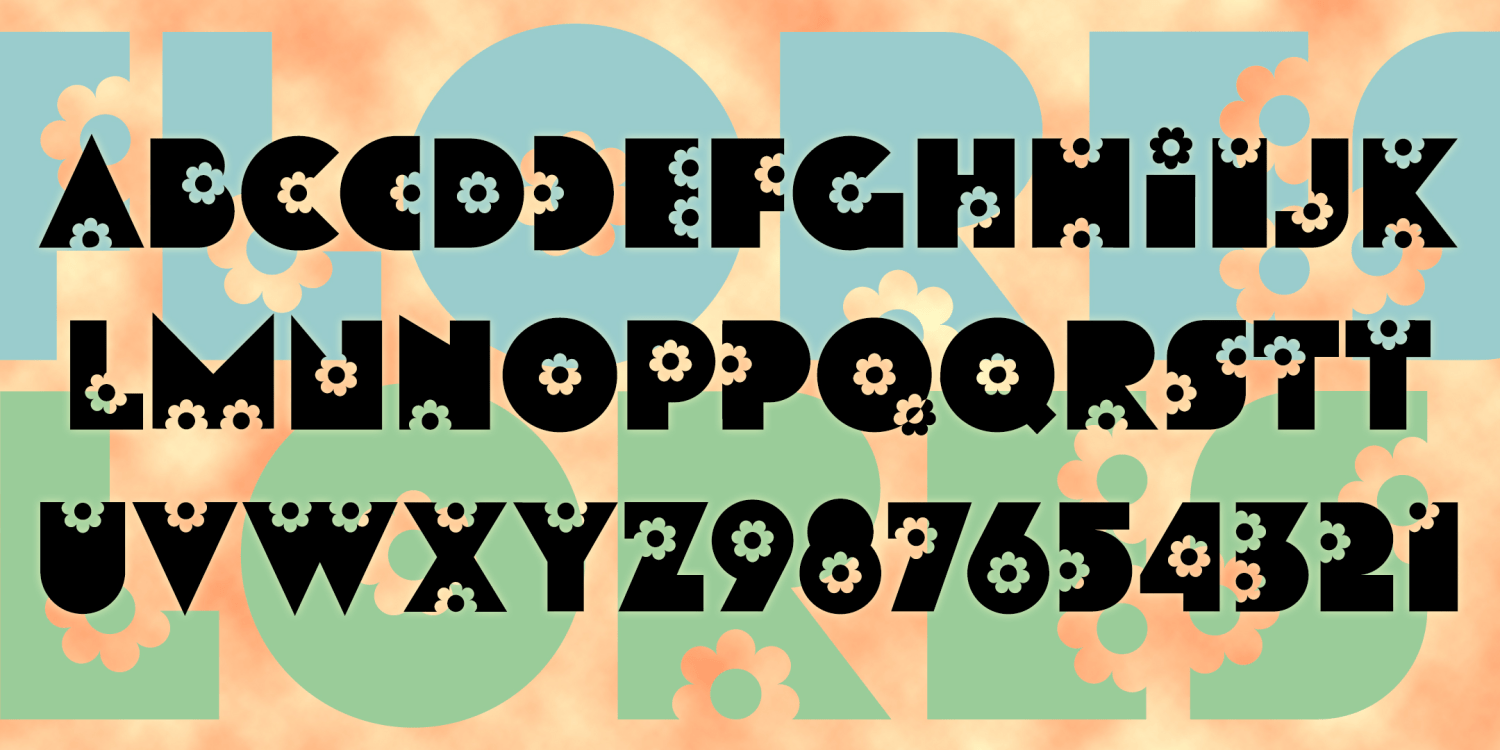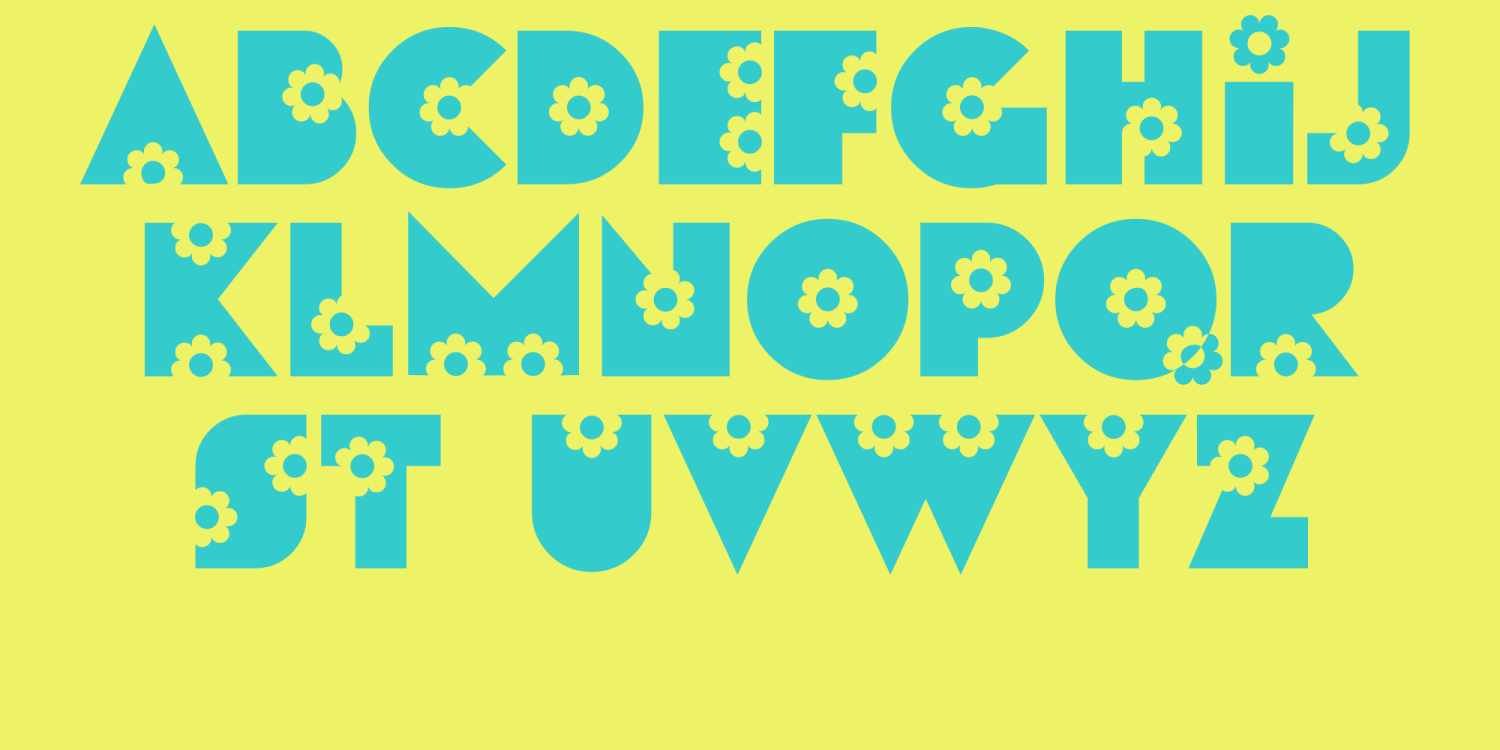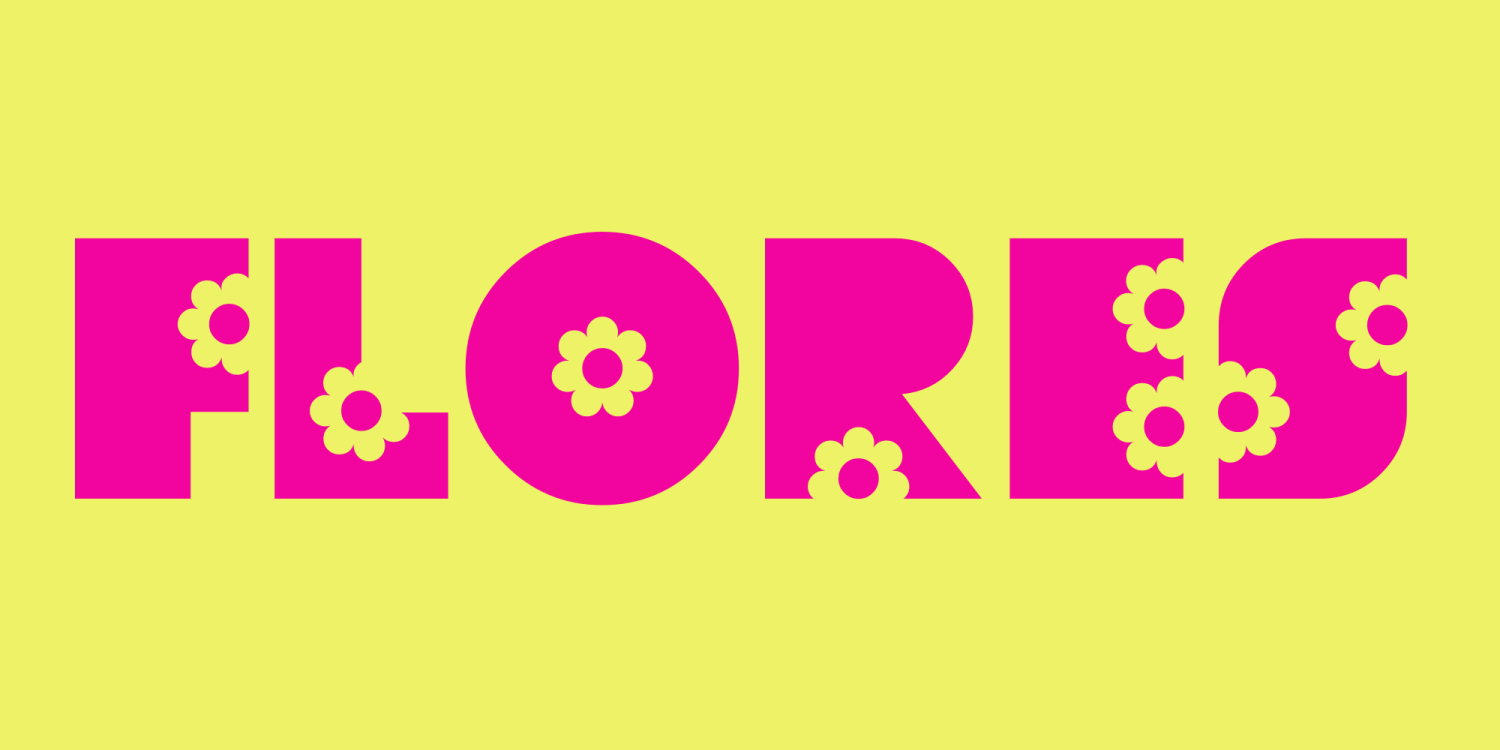
Flores
FLORES was inspired by a "flower power" font from the late 60s or early 70s. I started with th 6 letters of the name, found on a florist's sign in Valencia, Spain. Later I was given examples FLEURDON and SACHET DISCRET and expanded the font accordingly. The original font has still not been identified.
The Flores font family includes 195 glyphs.